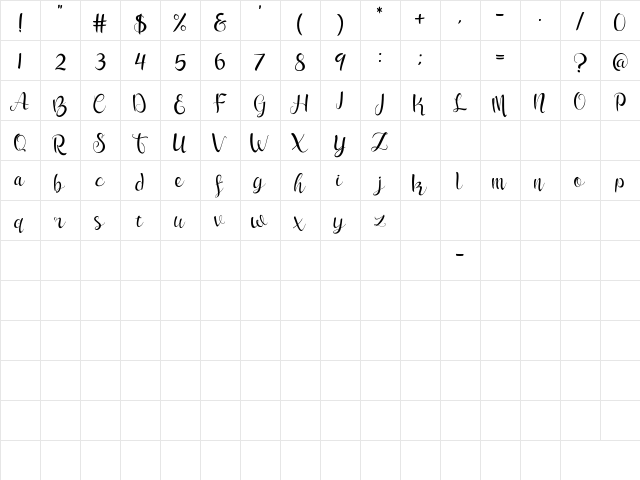
sleeper Regular Font Preview
sleeper Regular
sleeper Regular Font Details
| Designer | brightcalmblack |
Design Context for sleeper Typeface
sleeper is a composed and adaptable typeface that performs quietly and consistently across a wide range of design contexts.